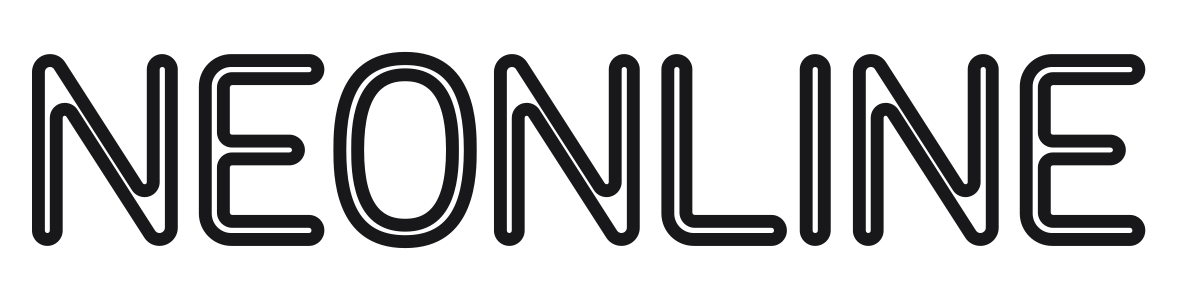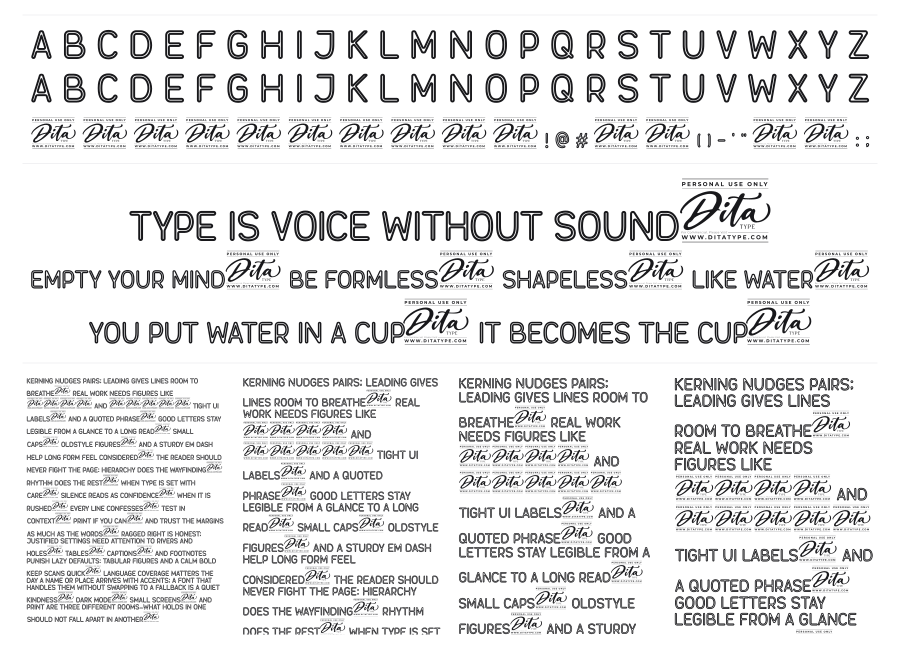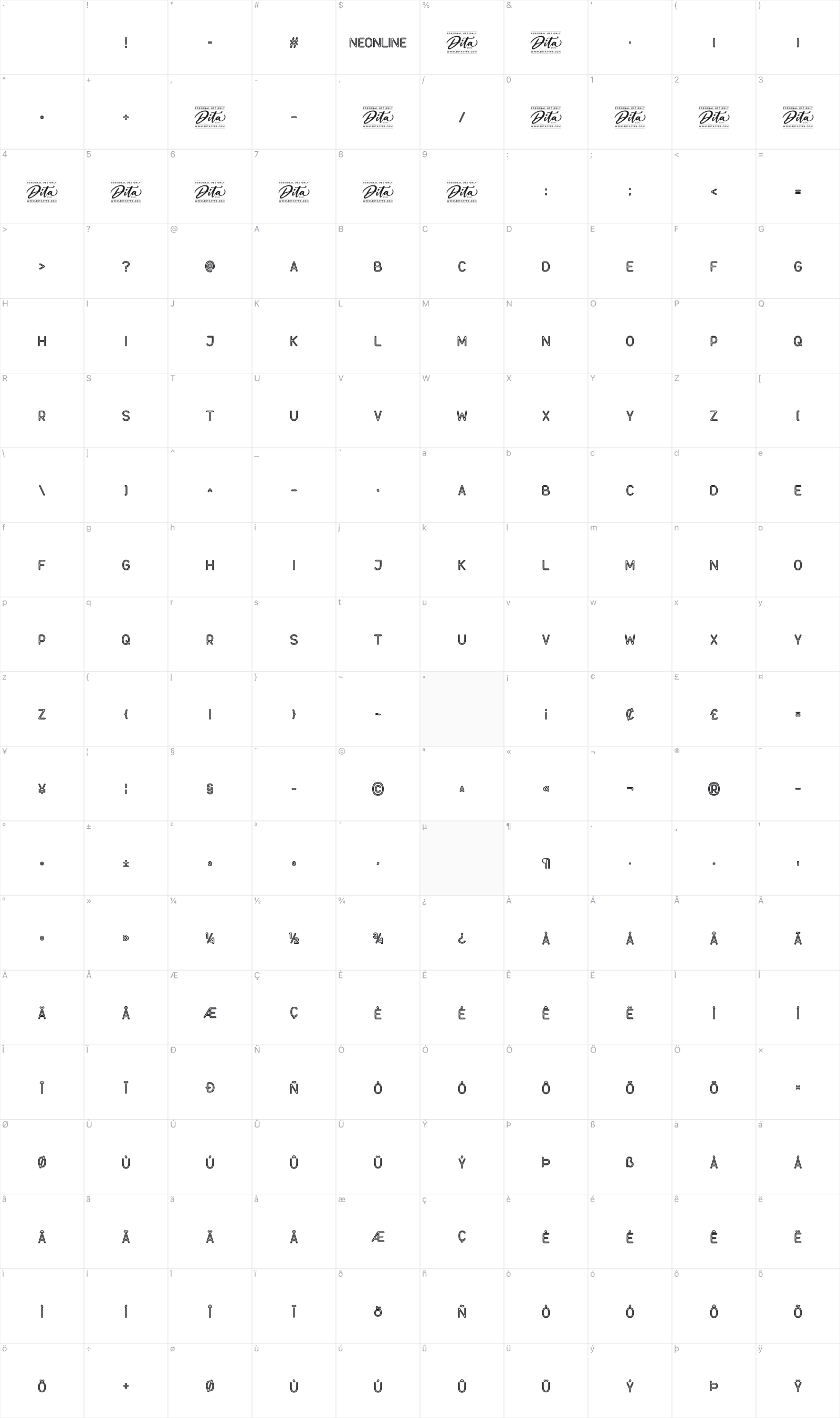
Neonline
Neonline is a rounded outline display font built to mimic the glowing double-tube structure of neon signs. Each character is drawn with a clean inner contour separated from the outer by a narrow gap, creating an unmistakable lit-tube effect at large sizes. It brings a retro 1970s commercial energy to posters, packaging, and entertainment branding.